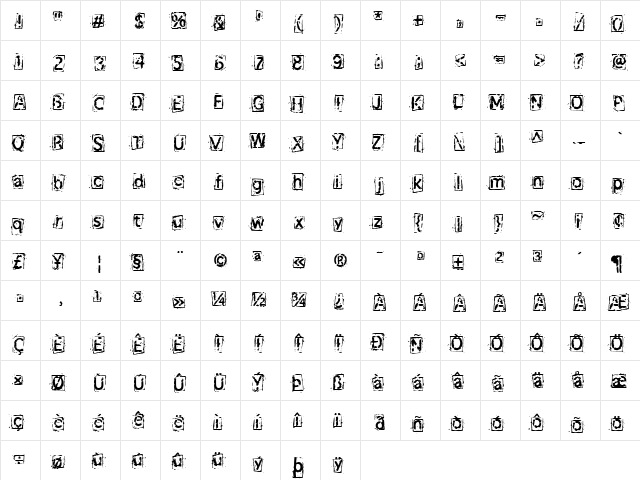
Not Too Shabby Boxed Regular
| Foundry | Typadelic Fonts |
| Designer | Ronna Penner |
Design Context for Not Too Shabby Boxed Typeface
Not Too Shabby Boxed is a composed and adaptable typeface that performs quietly and consistently across a wide range of design contexts.